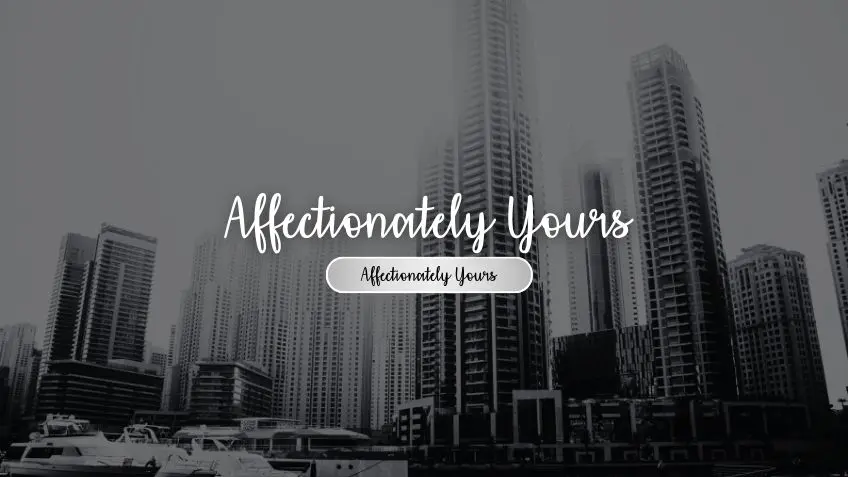
The font Affectionately Yours Regular, designed by Misti's Fonts, falls under the Script category & Affectionately Yours font family. Its smooth, flowing letterforms make it a versatile choice for projects that require both elegance and readability. Affectionately Yours is particularly well-suited for Social Media, Branding and Logos, Craft and DIY Projects, Wedding and Event Stationery and Short Text & Quotes. With its balance of simplicity and decorative appeal, this font brings a polished touch to both personal and professional designs.